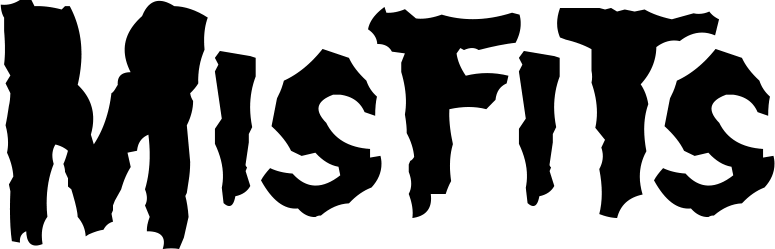
Misfits Font
This horror font fits the bill if you are after to impress your customers. The characters are bold and have different sizes. Misfits works faultlessly for movie posters, Halloween costumes, cards, and so forth. It gives…
This horror font fits the bill if you are after to impress your customers. The characters are bold and have different sizes. Misfits works faultlessly for movie posters, Halloween costumes, cards, and so forth. It gives you an excited and scary feeling. Don’t hesitate and download it without a second thought. By the way, to get more, don’t miss our boundless library.